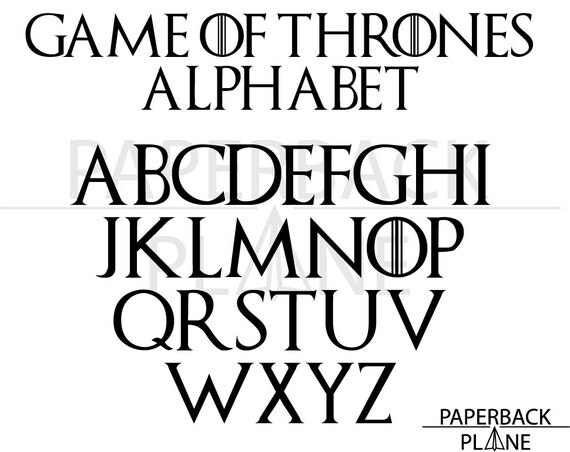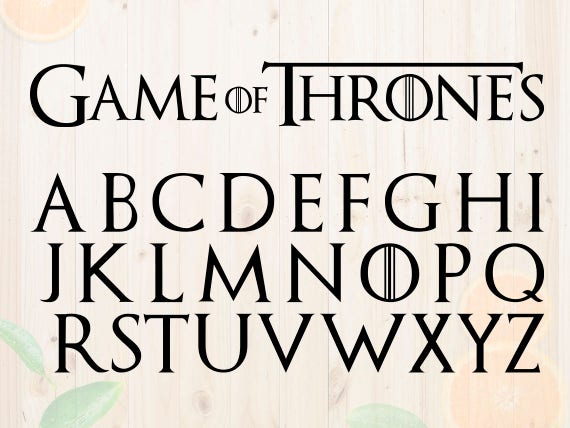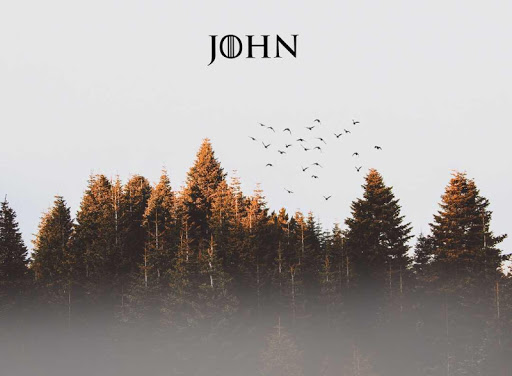
Game Of Thrones Font Generator
The font is available only in capital letters and if you just need to get the game of thrones logotype type the sign.
Game of thrones font generator. This font can also be shared on the social media website. The show is about 3 powerful families who try to gain control over the 7 kingdoms of westeros and to sit on the iron throne. Font details and character map font custom preview free font download view file contents. Free for personal or commercial use.
How to install a font extract the font file you have downloaded then. A collection of best best game of thrones fonts and inspired fonts that you can use on your project. Not only in terms of the acting and entertainment but the series also inspired all other aspects related to the dream sequences including the fonts used in the. Got has found success in a very short time as it captured different kinds of fans from all over the world.
From proverbs to merchandise game of thrones has lead to inspire a great number of things in our everyday life. Game of thrones episodes has been a massive success around the world. Game of thrones font here refers to the font used in the logo of game of thrones which is a medieval fantasy television series. The text generator section features simple tools that let you create graphics with fonts of different styles as well as various text effects.
As designers make a good part of the game of thrones fandom a lot of fonts and text effects have been created by taking the famous series as. One of the biggest and most talked about fantasy drama on television game of thrones has captivated a mammoth of an audience world wide. If you do not wish to download the font you can just type in the words you want and it will get generated. Types of game of throne fonts.